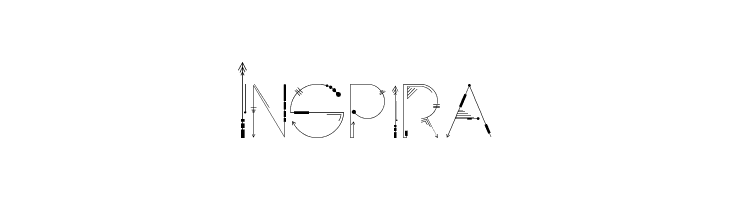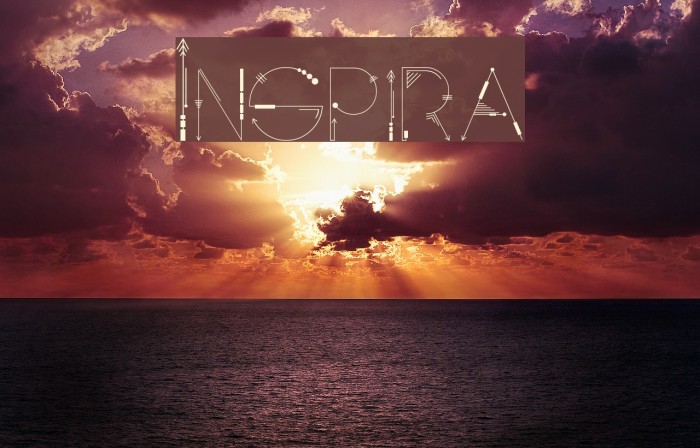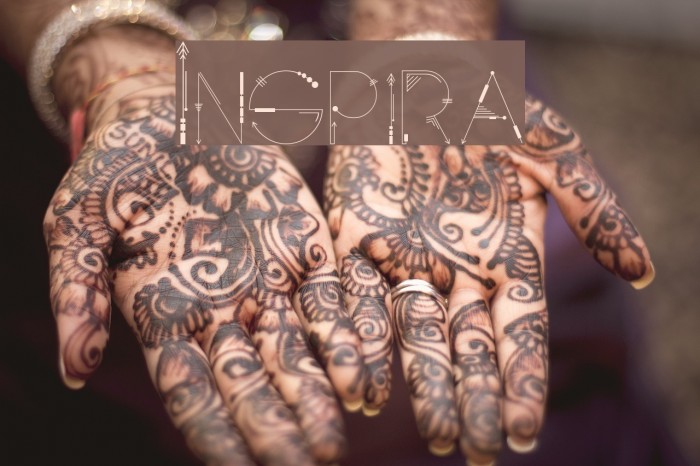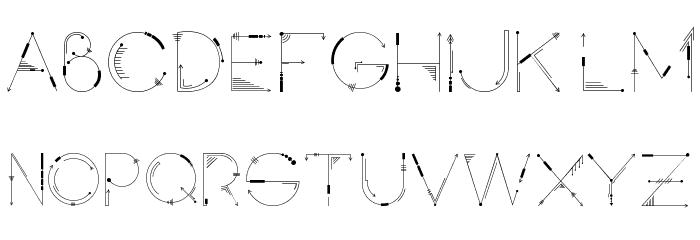
Inspira Font
Inspira Description
This font features a unique and intricate design, combining geometric elements with a modern flair. The uppercase letters are adorned with lines and dots, creating a sense of movement and complexity. The lowercase letters maintain a similar style, ensuring consistency throughout the typeface. The numerals are bold and clear, providing excellent readability. Special characters are included, each crafted with the same attention to detail, making this font versatile for various applications. Its distinct style makes it suitable for creative projects that require a touch of sophistication and modernity.
A modern, geometric font with intricate line and dot details from Decorative fonts.
- Proposed Projects: Ideal for branding, posters, and artistic projects that require a modern and sophisticated look.